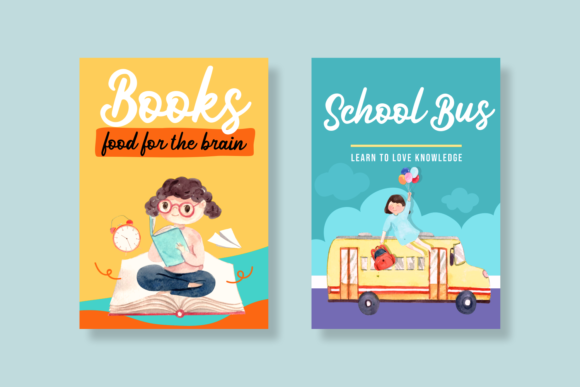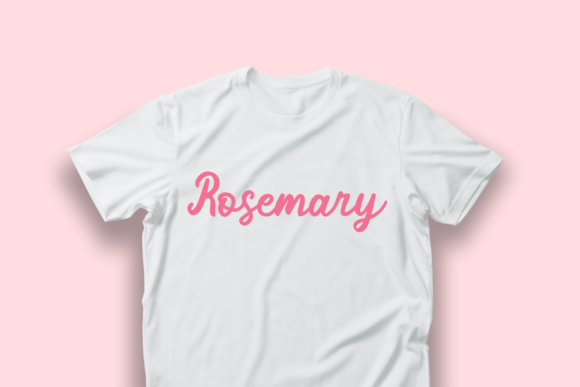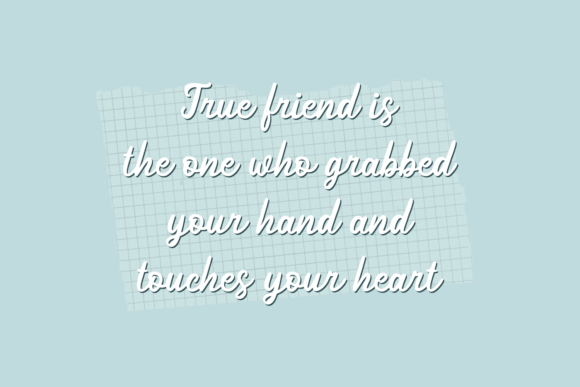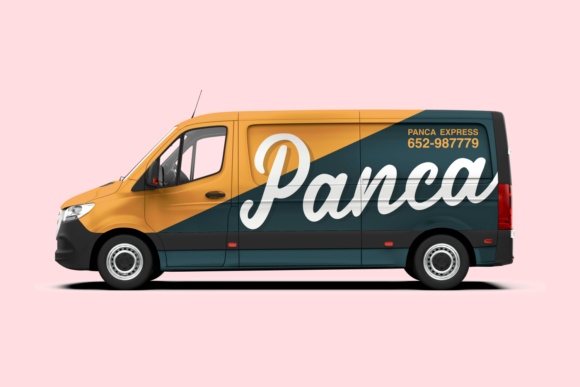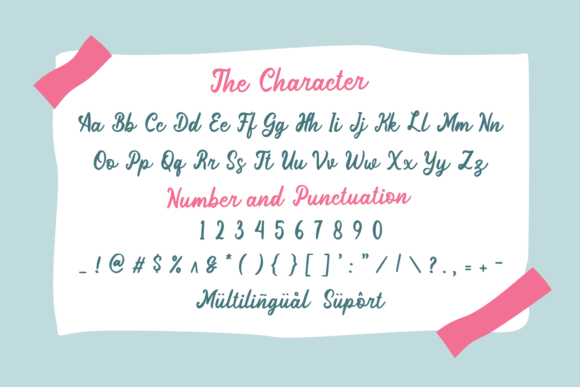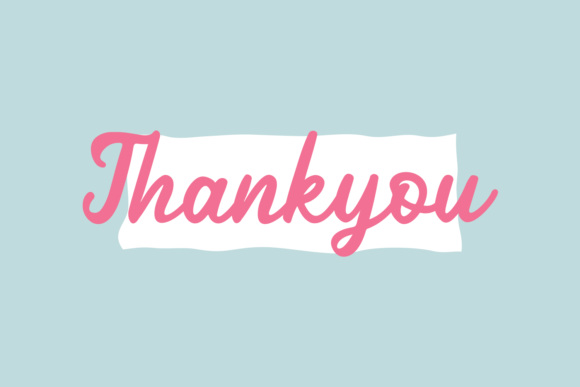
The Perfect Font for Love and Celebration
Have you ever been searching for the perfect font to capture the essence of a special moment, only to find yourself scrolling through endless options, none of which seem quite right? I know I have. That’s why I’m excited to introduce you to the Barsime Font, a sweet and delicate handwritten font that’s sure to bring a touch of romance and whimsy to your designs.
This lovely font is perfect for writing wedding invitations, cards, and any other design that needs a personalized touch. With its dainty and joyful feel, Barsime Font is sure to make your creations stand out. For designers, the Barsime Font is a valuable addition to any font collection, offering a unique and versatile option for a wide range of projects.
Barsime Font Key Features
- Font Family: Barsime is a unique, handwritten font with a touch of elegance and sophistication.
- Unique Characteristics: Barsime features a distinctive, flowing script with subtle flourishes and connecting strokes, adding a touch of personality to any design.
Designer Review: Barsime Font
I had the chance to play around with the Barsime font, and here are my honest thoughts.
- The Barsime font has a unique, handwritten feel that sets it apart from more traditional fonts.
- The letterforms are well-designed and have a natural flow to them, making it easy to read.
- The font has a good range of weights and styles, making it versatile for various design projects.
- The Barsime font may be too ornate for some design projects, potentially overwhelming the content.
- The font could benefit from more OpenType features, such as ligatures and contextual alternates.
- The font’s legibility in small sizes could be improved, making it less suitable for body text.
Overall, I think the Barsime font is a great choice for projects where a unique, handwritten feel is desired. While it may have some limitations, it’s a solid addition to any font library.
Barsime Font is a versatile font that can be used for various designs. To get the most out of it, use it for titles and headings to add a touch of elegance and sophistication. Experiment with different font sizes and colors to create a visually appealing design.
Barsime Font is ideal for:
- Formal event invitations and programs
- Luxury brand logos and packaging
- High-end advertising and marketing materials